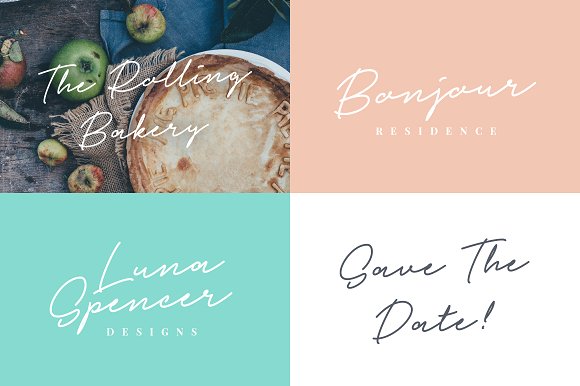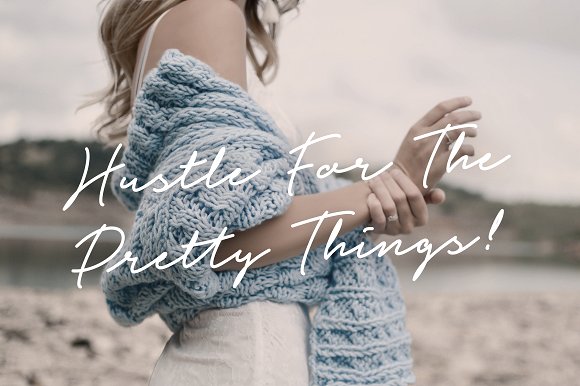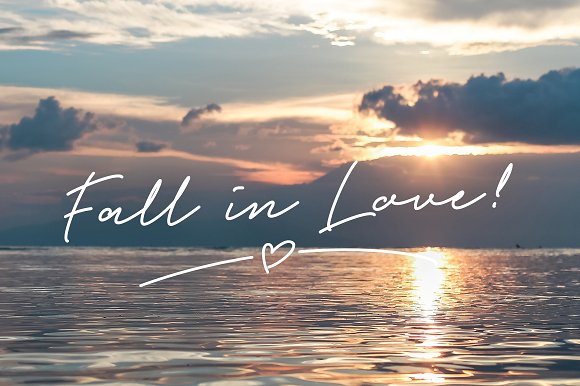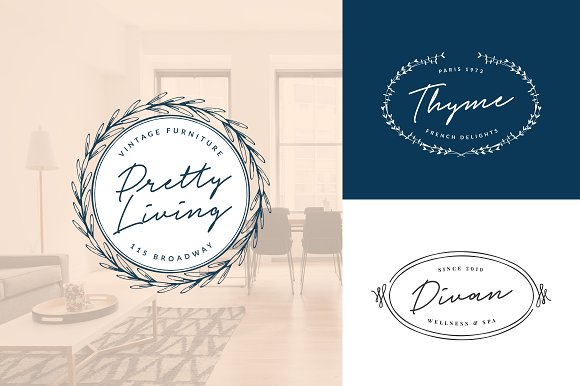
Pretty Pen
Pretty Pen Handwritten Font
Pretty Pen is a trendy and unique handwritten font with a wide and right-slanted touch that makes it natural and pleasant. It’s characteristic hand look style makes it perfect to use for logos, signatures,labels, packaging design, blog headlines or simply use it in your next design project.